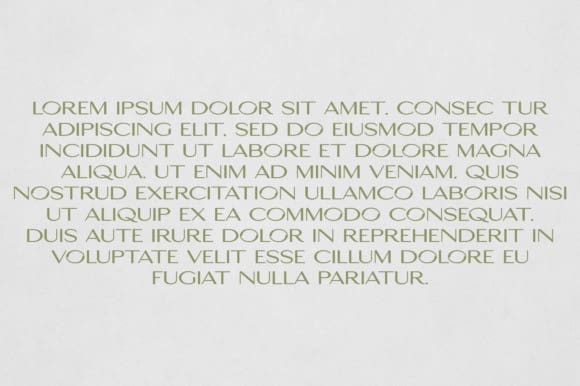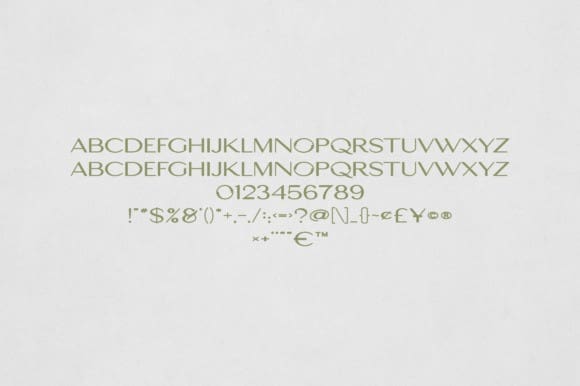
Inej Font
Inej Font is an elegant and versatile font that will make your typography truly unique! It will enchant every logo, branding, headline, or plain text!